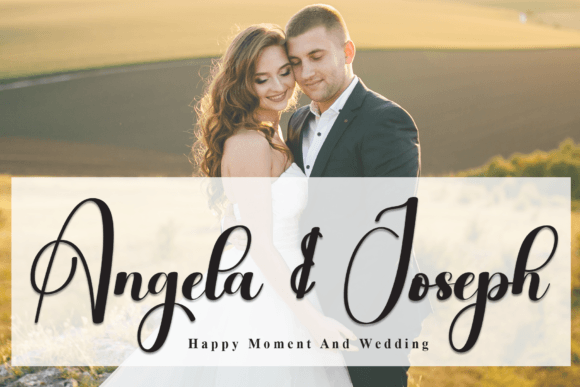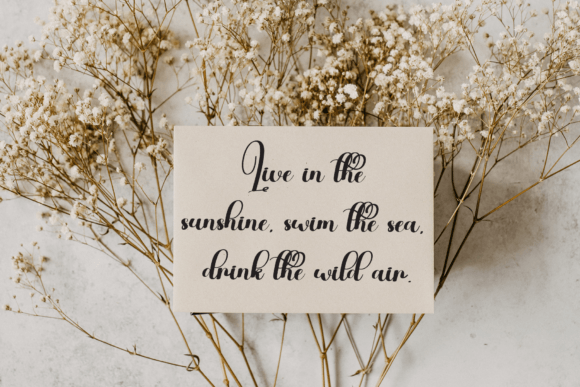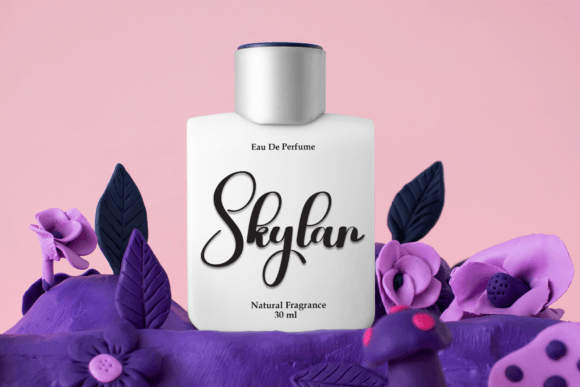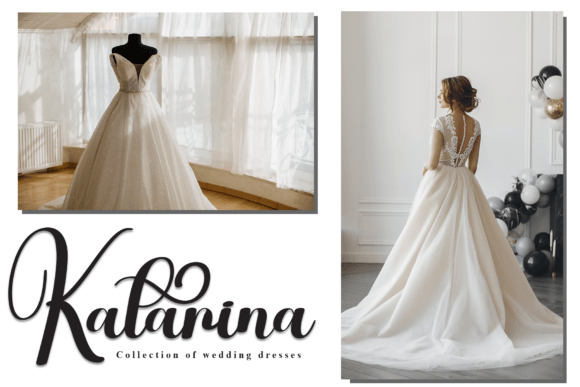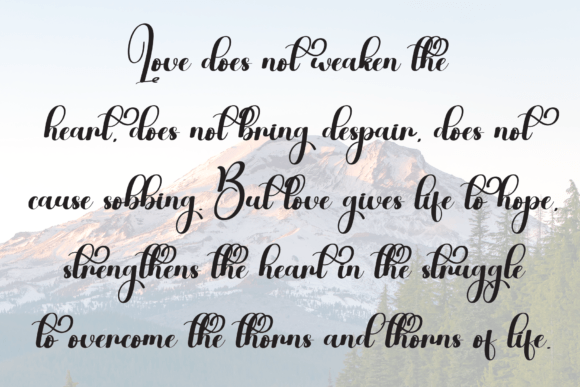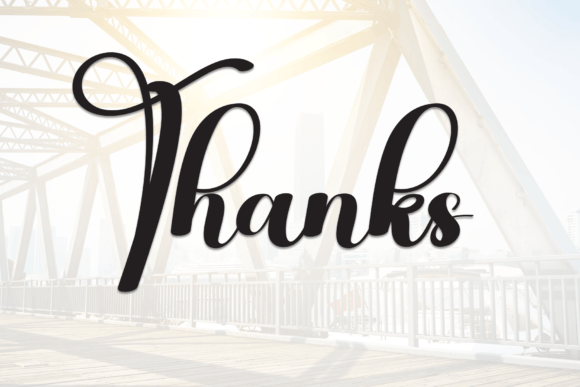
The Sweet Spot: Discovering the Charm of Bridgerton Font
I’ll never forget the time I was working on a wedding invitation project, and my client asked for a font that was “whimsical, yet sophisticated.” I scoured the internet, tried out a dozen fonts, but nothing seemed quite right. That was until I stumbled upon Bridgerton Font. With its charming, handwritten display, it instantly captured the essence of the couple’s special day. In this article, I’ll share my experience with this delightful font, its features, and how to make the most of it in your design projects.
A First Impression: What Makes Bridgerton Font Special
Bridgerton Font is a true gem, exuding warmth, friendliness, and a dash of playfulness. Its heartwarming nature makes it perfect for crafting enchanting wedding invitations, expressive cards, or any design project that requires a spritz of fun. Here are some of the things I love about this font:
- ✨ Unique, handwritten display that adds a personal touch to any design
- ✅ Extensive character set, including support for multiple languages
- ✅ OpenType features, glyphs, and stylistic alternates for added versatility
A Few Quirks to Keep in Mind
While Bridgerton Font is a stunning addition to any design project, there are a few quirks to be aware of:
- 🤔 Limited suitability for body text, as it’s best used for display purposes
Exploring Alternatives: Similar Fonts to Bridgerton
If you’re looking for similar fonts to Bridgerton, here are a few alternatives to consider:
- Pacifico: A beautiful, modern script font with a relaxed, friendly vibe. Ideal for designs that require a touch of elegance and sophistication.
- Great Vibes: A fun, handwritten font with a lively, energetic feel. Perfect for projects that need a dash of playfulness and whimsy.
- Lobster: A stunning, elegant script font with a luxurious, refined feel. Suitable for high-end designs, such as wedding invitations, luxury branding, or upscale advertising.
- Carolyna Pro: A lovely, handwritten font with a warm, inviting personality. Great for designs that require a touch of sweetness and charm.
The Story Behind Bridgerton Font
Bridgerton Font was inspired by the classic romance novels of the Regency era. Its designer aimed to create a font that captured the essence of this bygone era, with its ornate, flowing script and charming personality. The result is a font that’s both nostalgic and timeless, perfect for designs that require a touch of elegance and sophistication.
| Font Name | Bridgerton Font |
| What is the best way to use Bridgerton Font? | Bridgerton Font is best used for display purposes, such as headings, titles, or captions. Its unique, handwritten display makes it perfect for designs that require a touch of personality and whimsy. |
| Is Bridgerton Font suitable for body text? | No, Bridgerton Font is not recommended for body text. Its unique character set and handwritten display make it best suited for display purposes. |